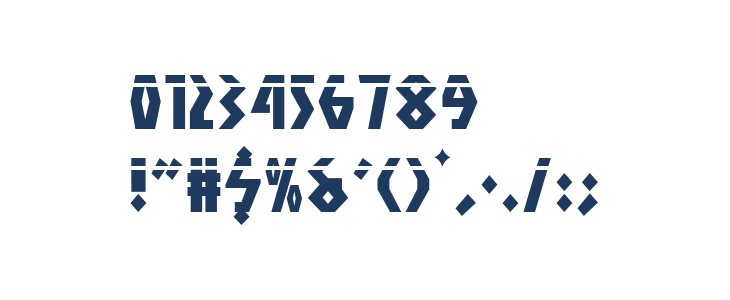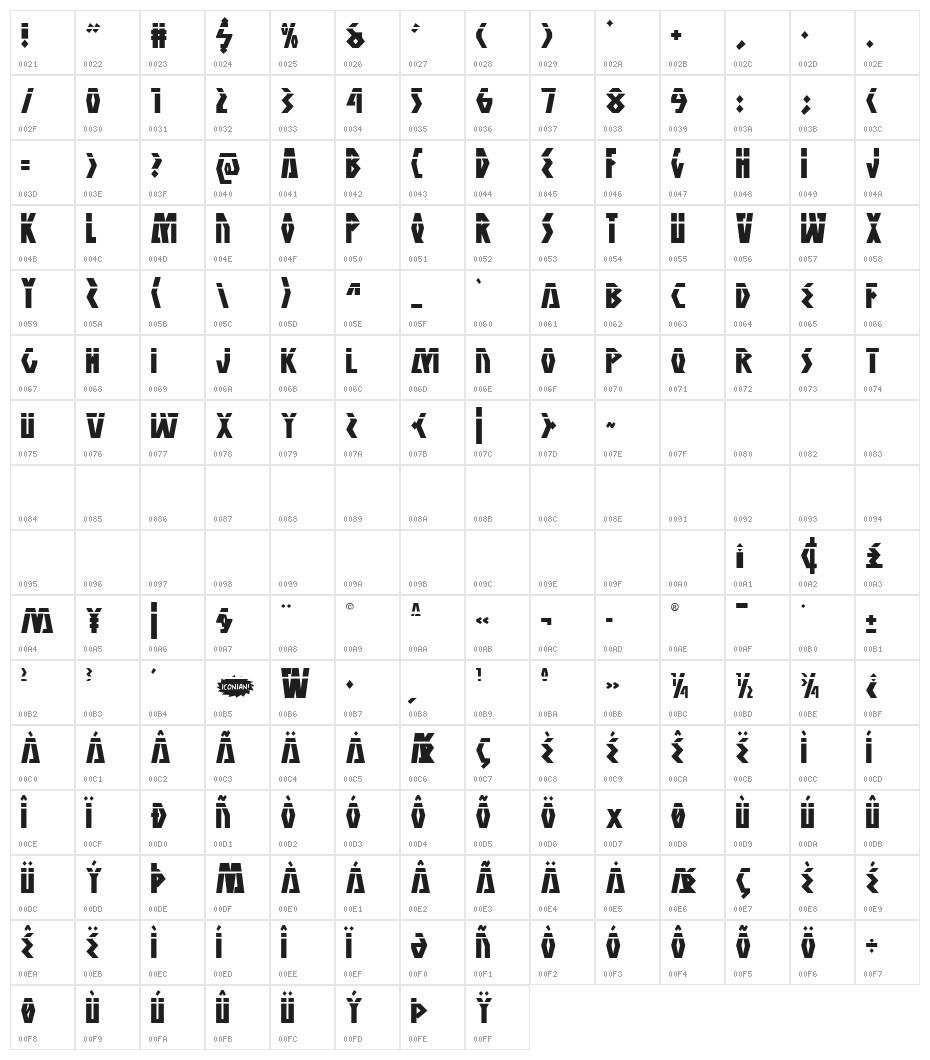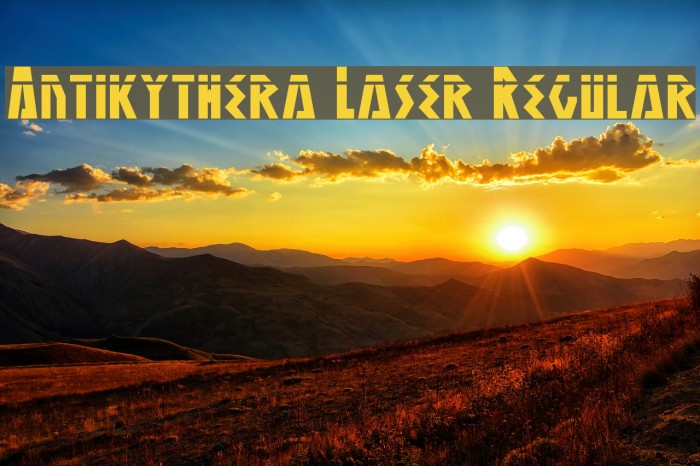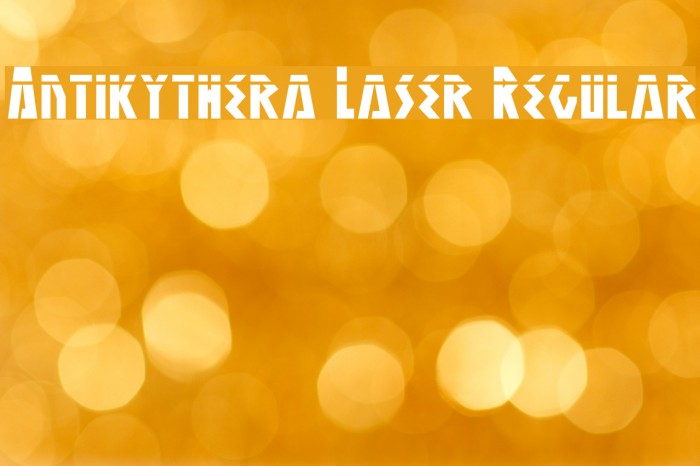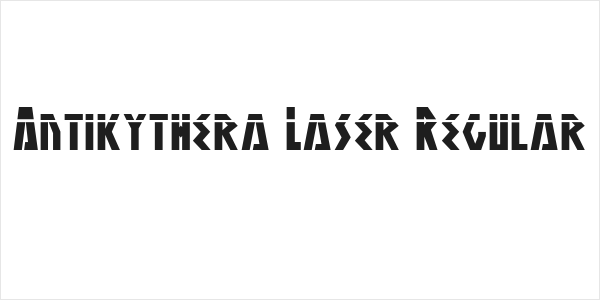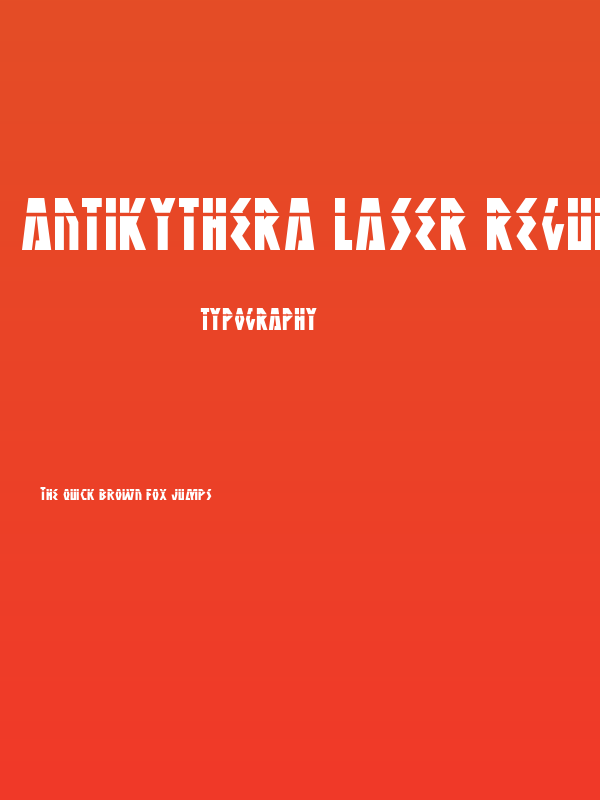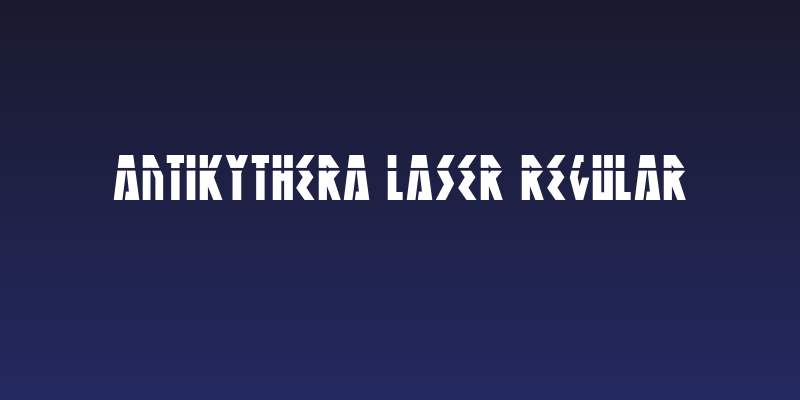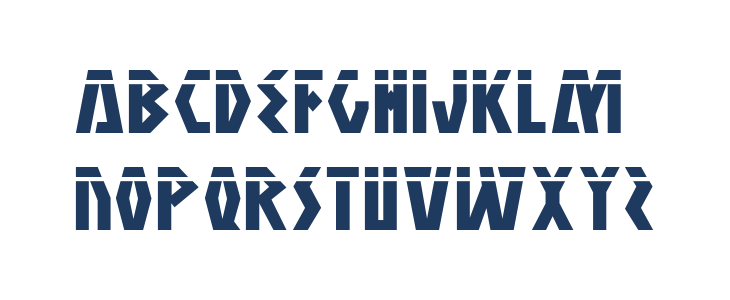
Antikythera Laser Regular Font
Antikythera Laser Regular Description
This font features a bold and futuristic design with geometric shapes and sharp angles. Each character is crafted with precision, creating a sense of movement and energy. The uppercase letters are particularly striking, with their angular forms and unique cuts that give them a distinct, almost mechanical appearance. The lowercase letters maintain this style, ensuring consistency throughout the typeface. Numbers and special characters are equally bold, making them stand out in any design. The overall aesthetic is modern and dynamic, suitable for projects that require a strong visual impact.